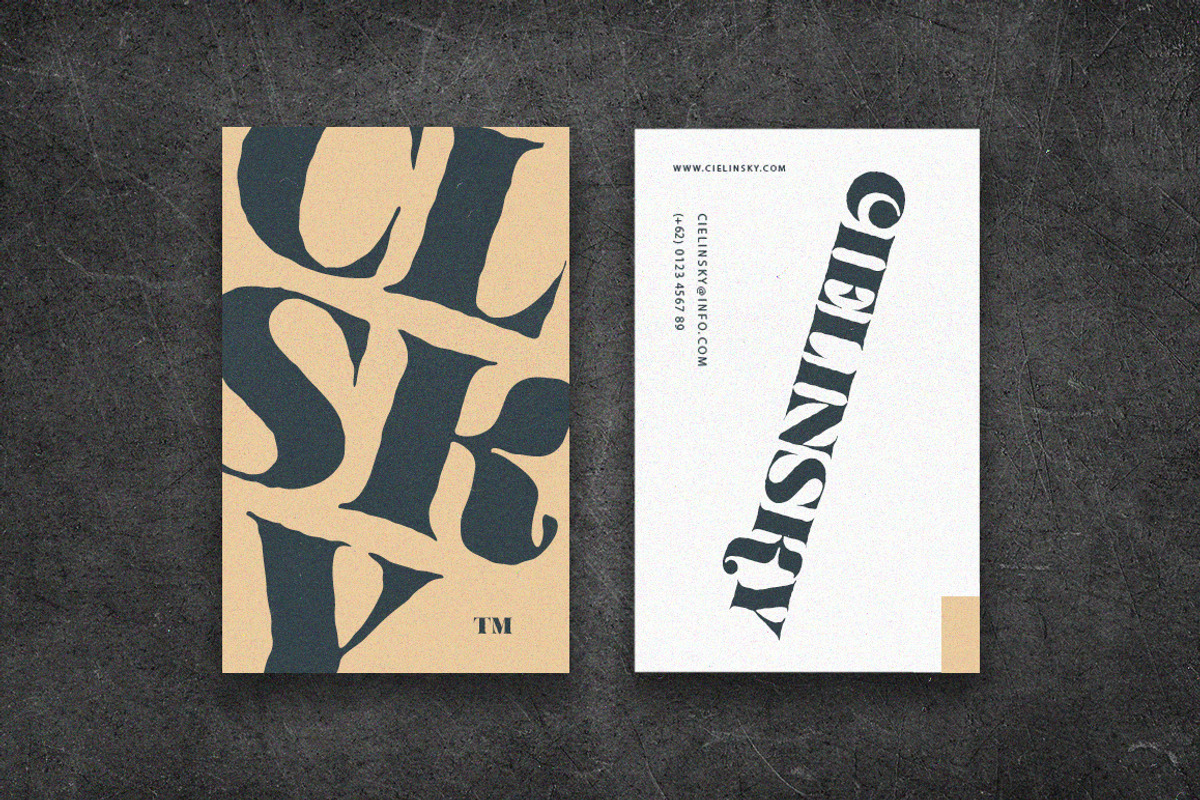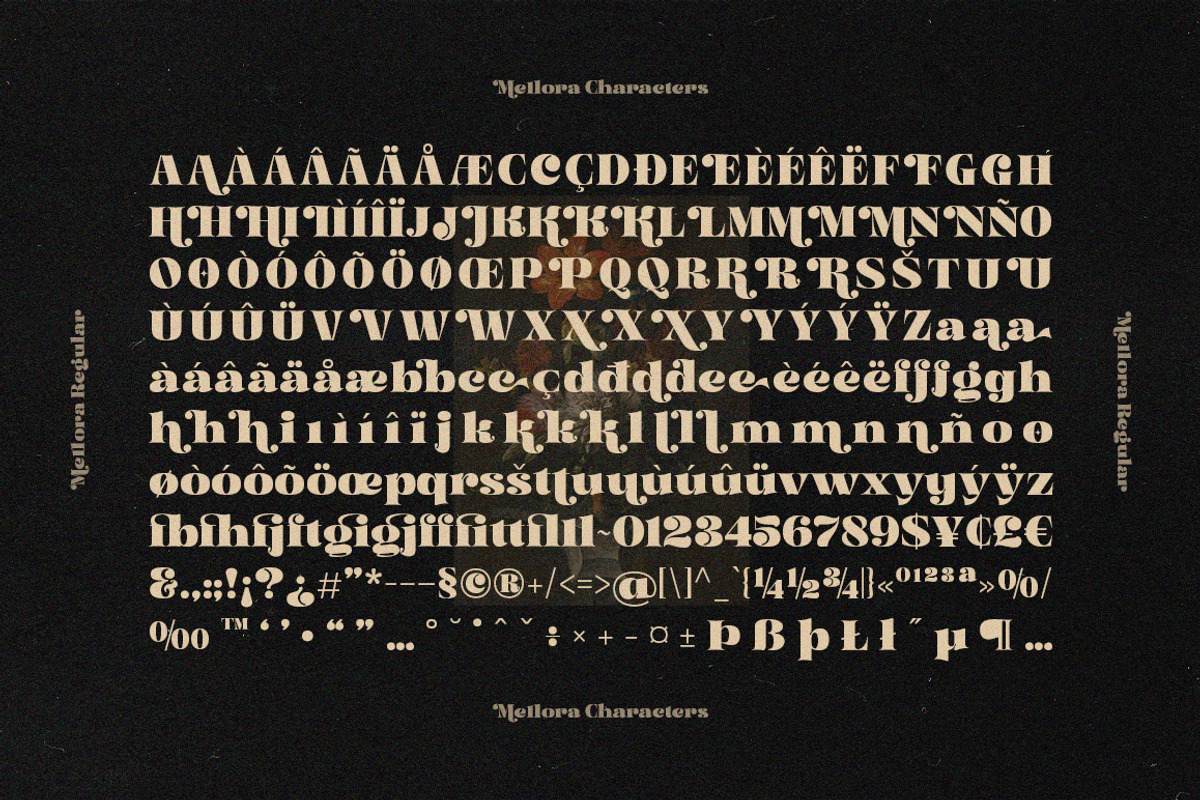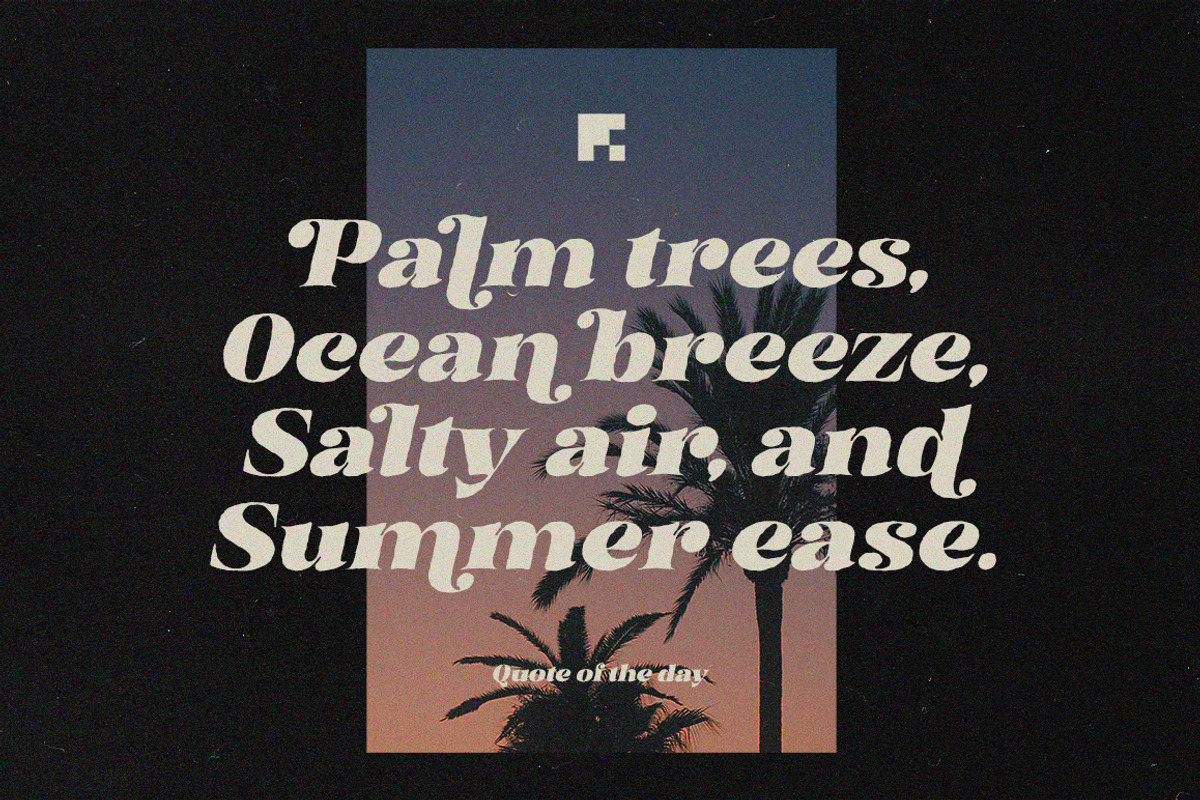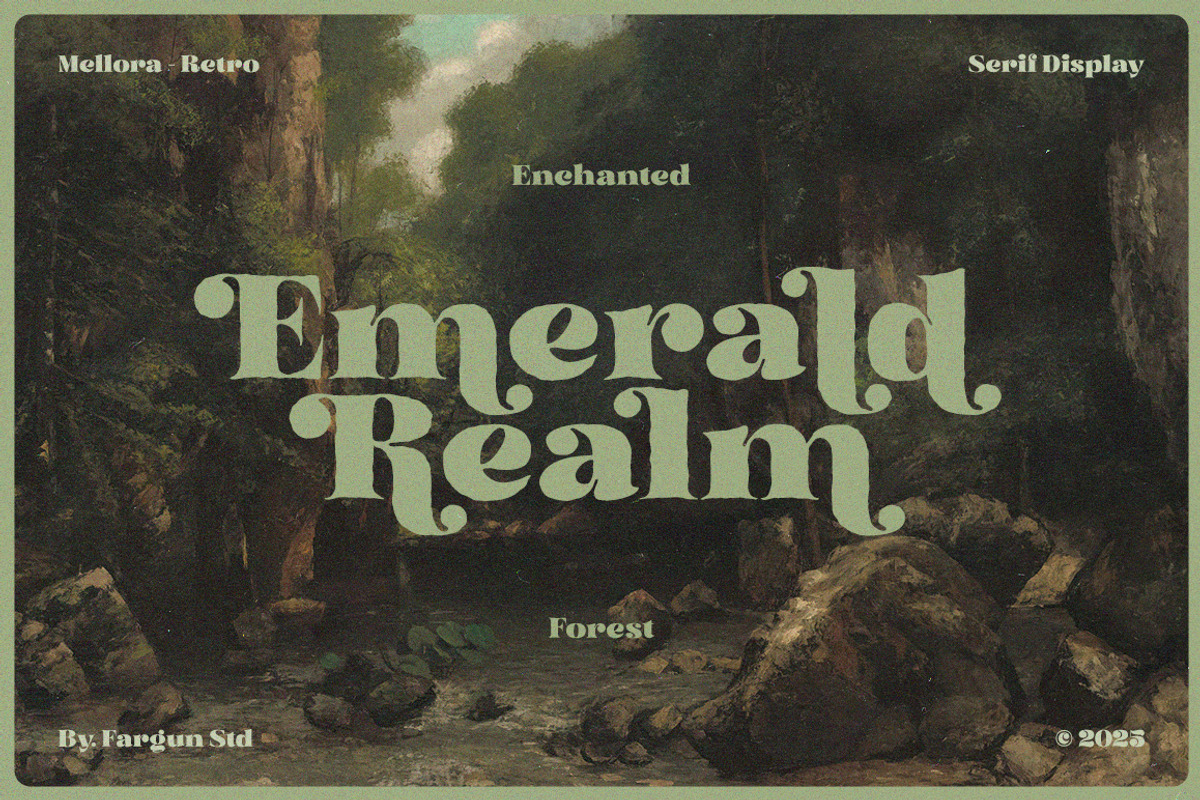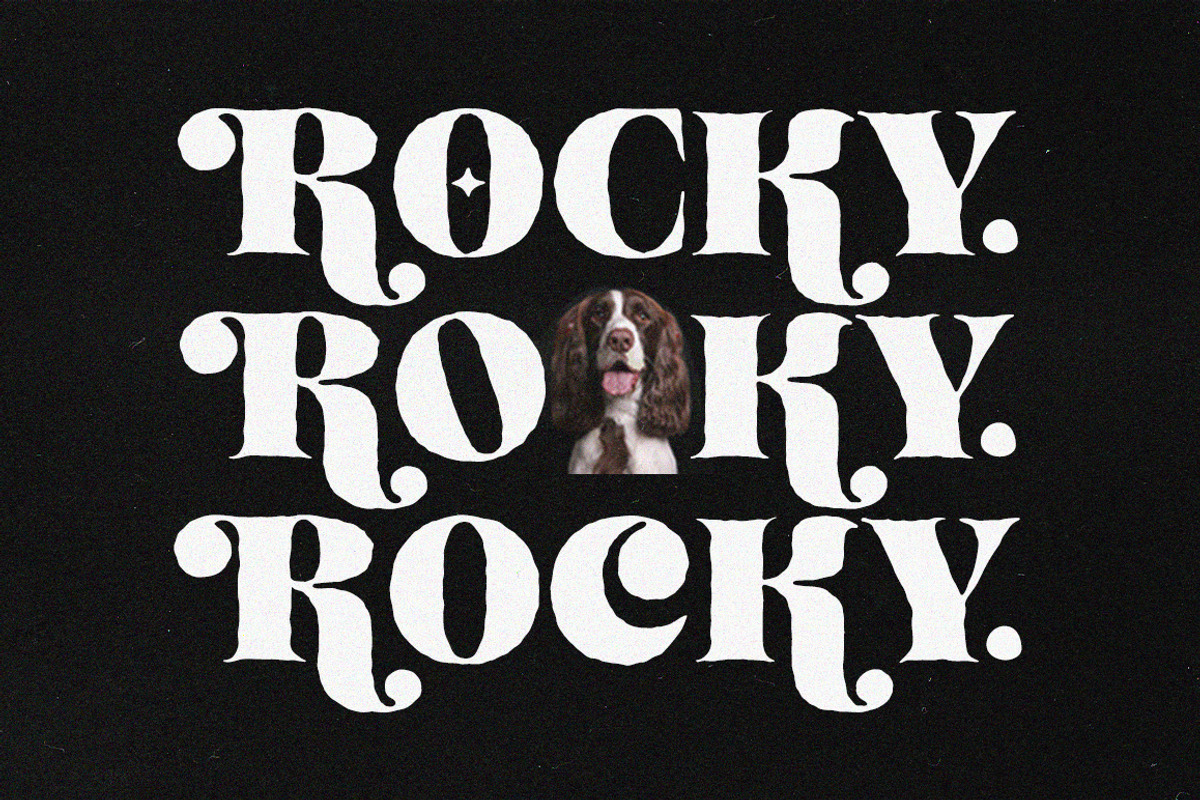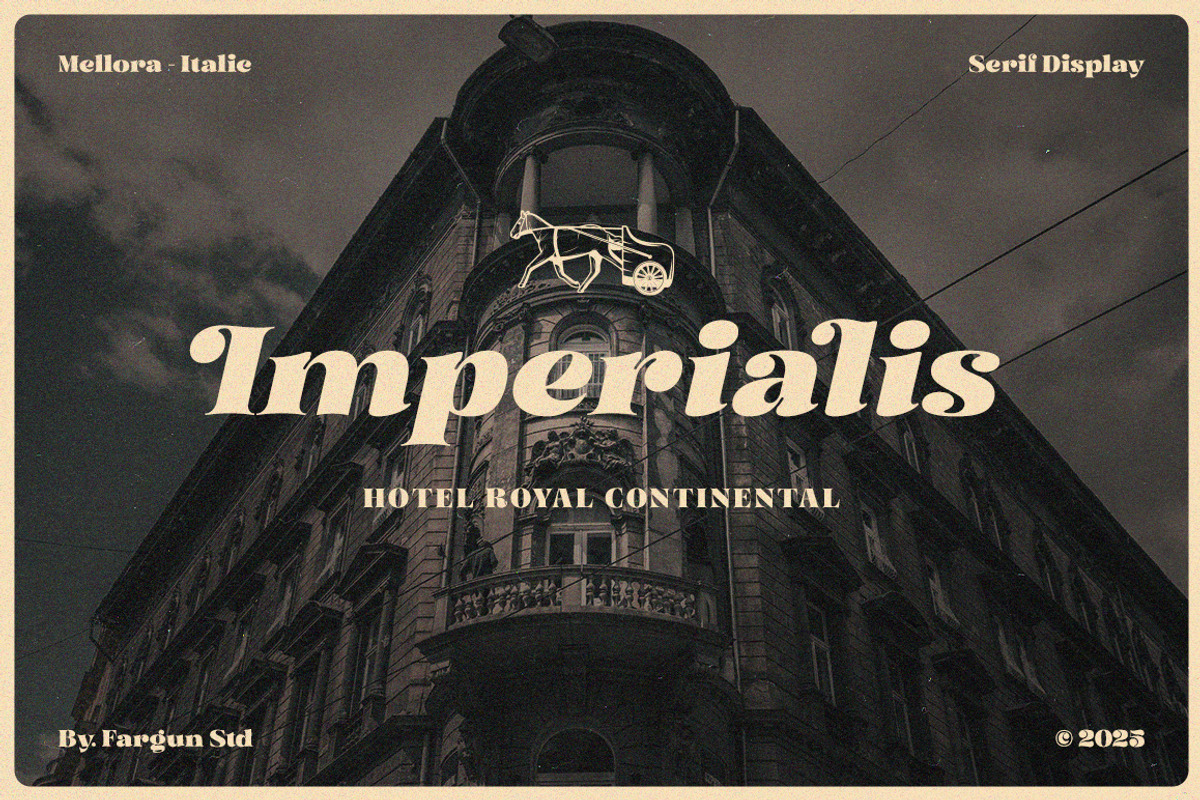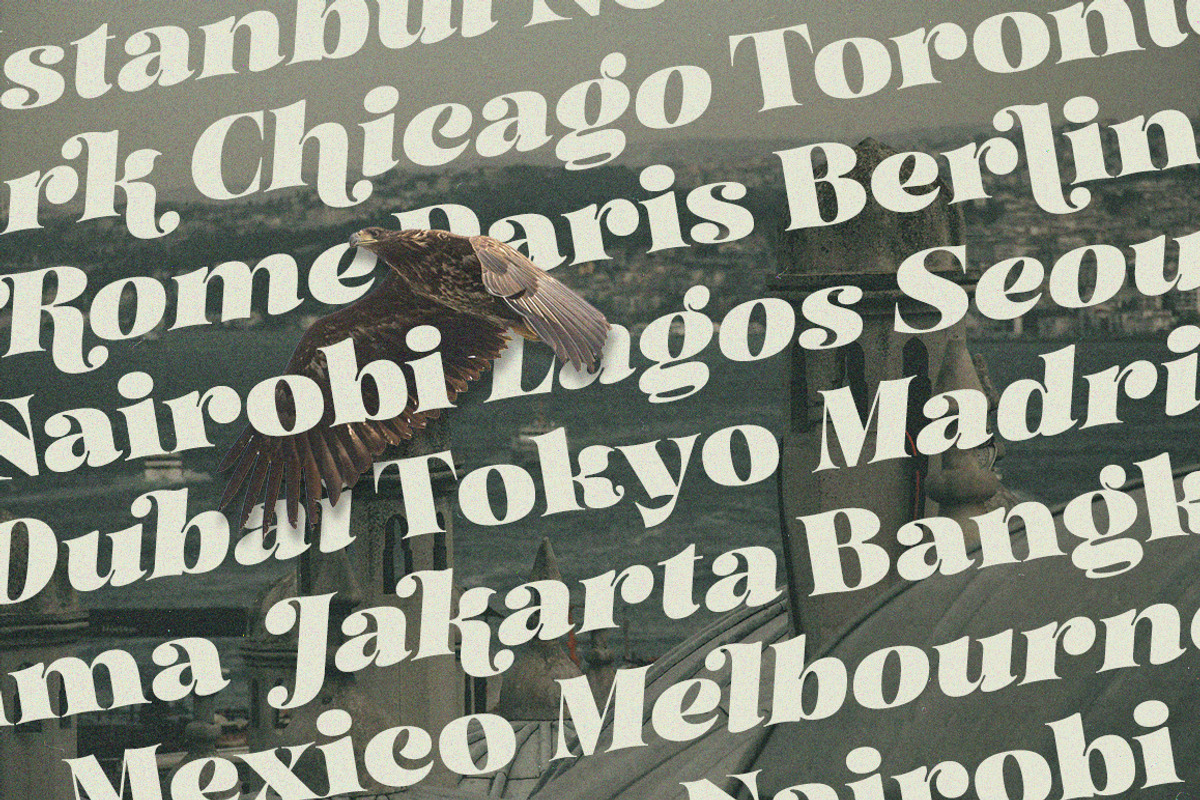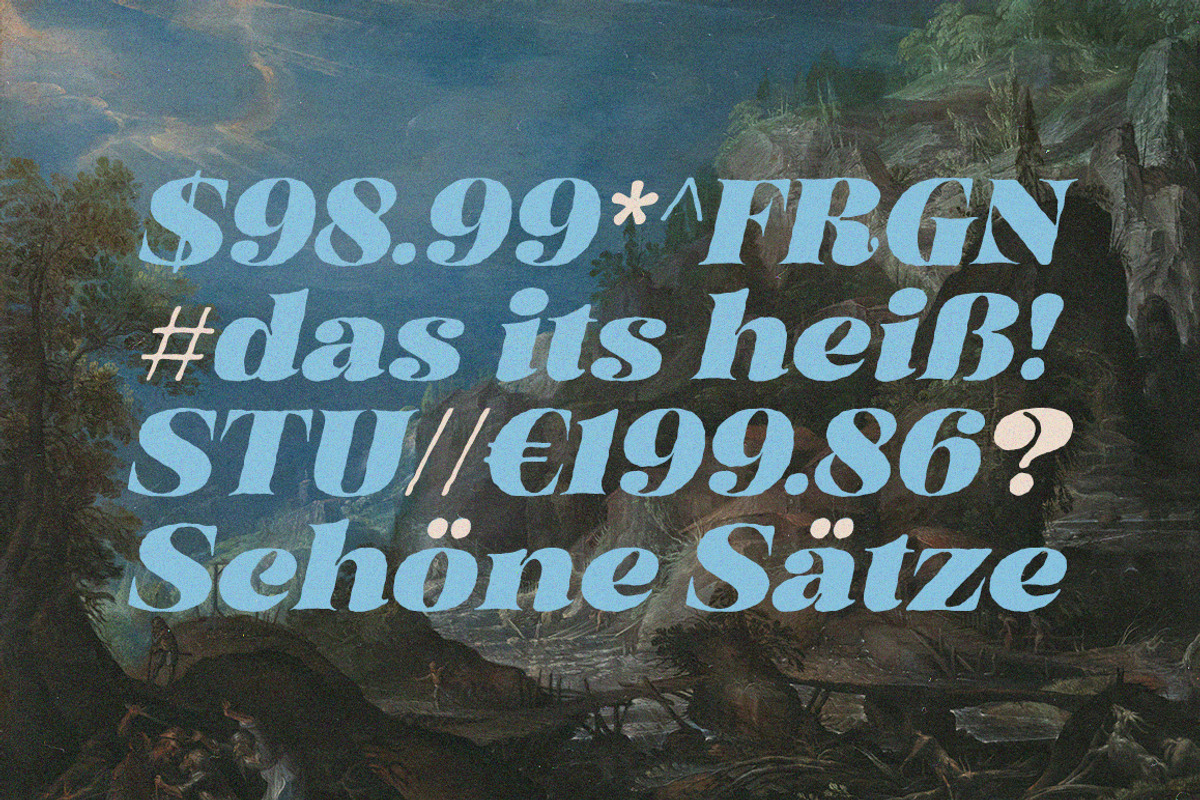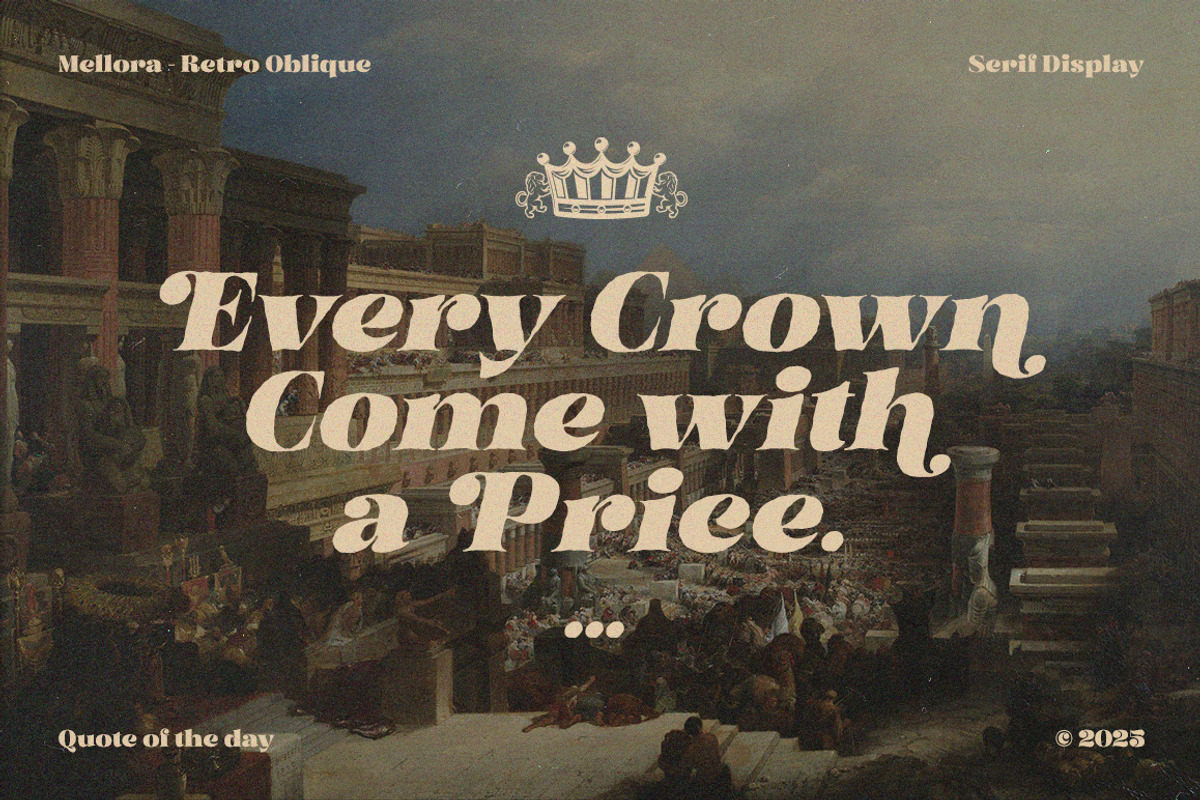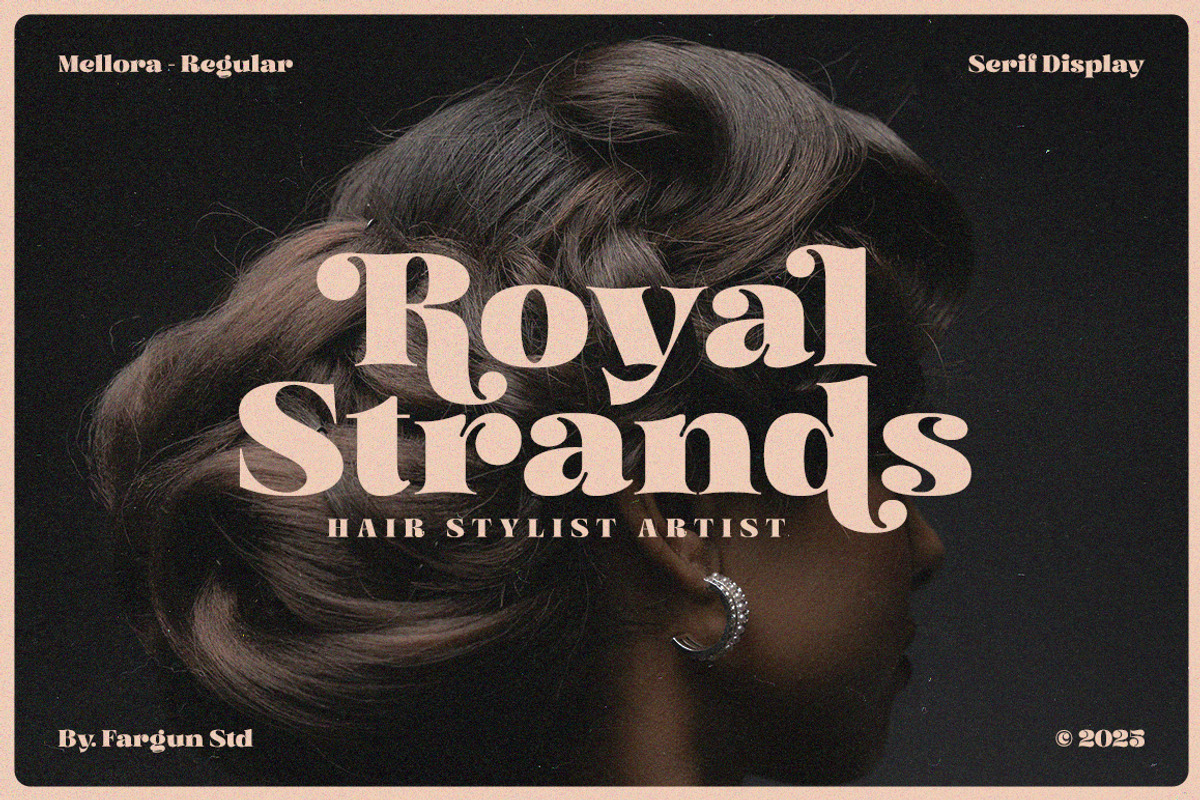
Mellora - Display Serif
Mellora is a serif display font crafted with an air of tranquility and sophistication. Designed to evoke elegance, it comes in regular, oblique and italic with retro styles that offer versatility across a wide range of design projects.
With its smooth curves and graceful lines, Mellora is equally suited for striking headlines and refined body text. Featuring ten unique styles, it allows for effortless mixing and matching, making it easy to create visually engaging typographic compositions.
Whether you’re designing a magazine layout, a distinctive logo, or an eye-catching poster, Serenity adds a touch of refinement to your work. It is thoughtfully designed to enhance clarity and cohesion, making it a valuable addition to your creative toolkit.